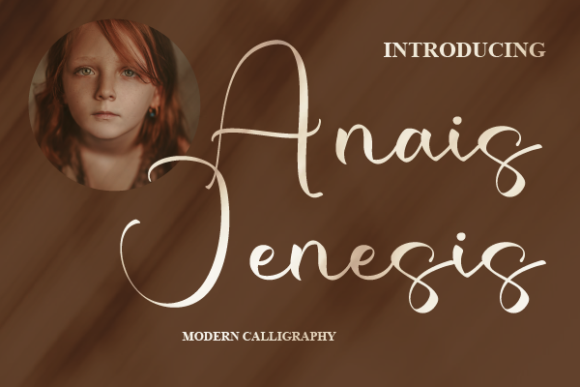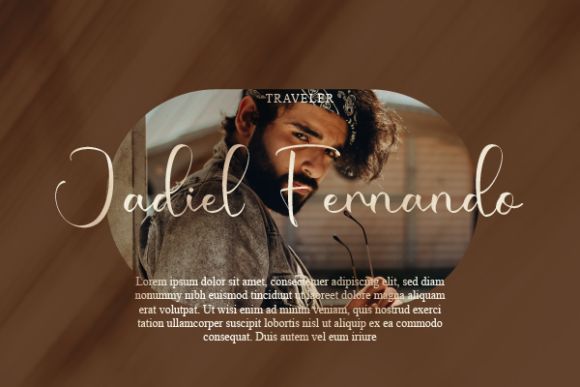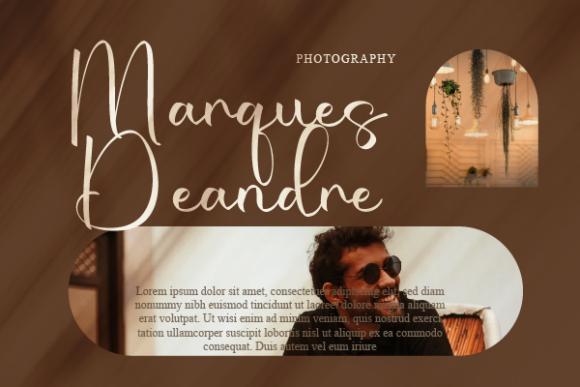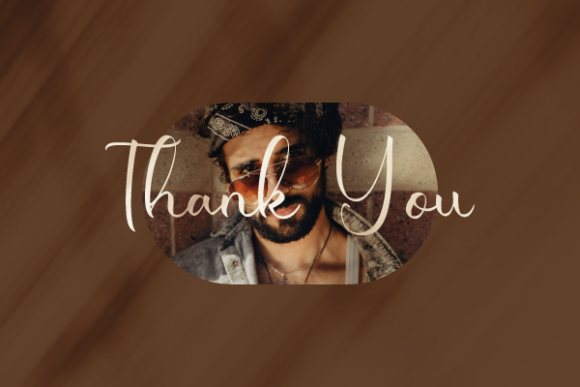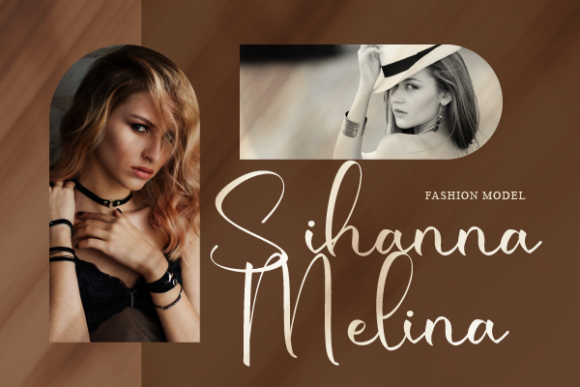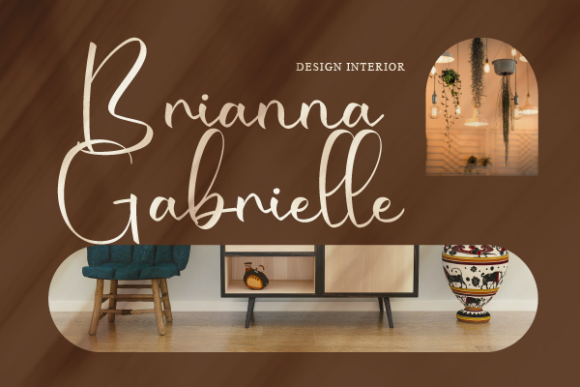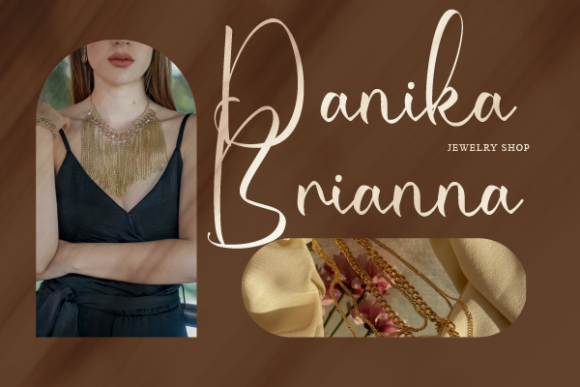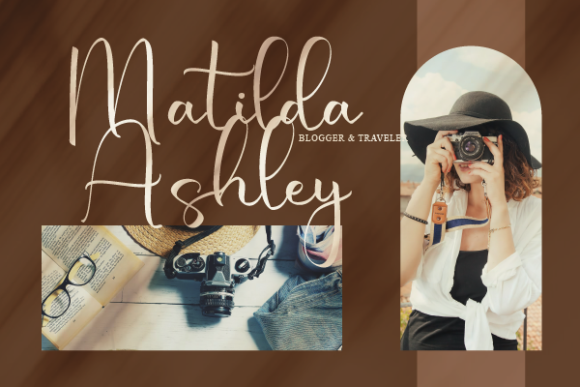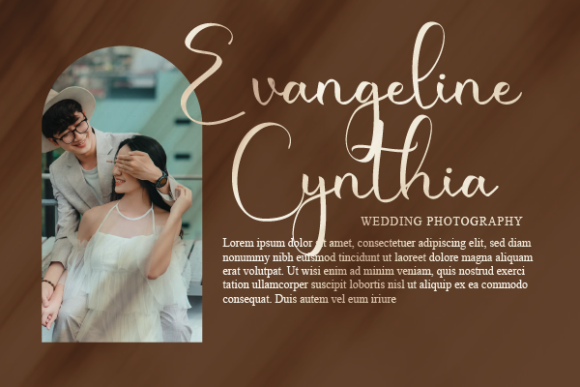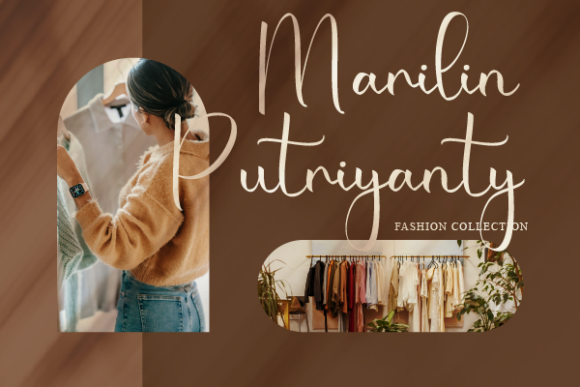
Anais Jenesis Font
About Anais Jenesis Font
“Anais Jenesis” is introduced as a relaxed and free-flowing script font designed to bring a sense of ease and natural flow to various design projects. The font is recommended for applications such as product packaging, branding projects, magazine covers, social media, weddings, or any use where the goal is to express words above the background.
The description of “Anais Jenesis” as relaxed and free-flowing suggests a casual and effortless quality to the script style, making it suitable for projects that aim to convey a laid-back and approachable feel. Its versatility across product packaging, branding, and various other applications indicates that it can adapt to different design contexts.
The diverse range of suggested uses, from product packaging to social media and weddings, positions “Anais Jenesis” as a versatile font suitable for a variety of creative projects. This adaptability implies that the font can seamlessly integrate into different design contexts while maintaining its relaxed and free-flowing qualities.
In summary, “Anais Jenesis” is presented as a font that offers a relaxed and free-flowing script style, making it well-suited for projects where a casual and natural aesthetic is desired. Whether applied to product packaging, branding, or social media, the font is positioned as a versatile choice for designers seeking a script font that effortlessly expresses a sense of ease and flow in their creative expressions.